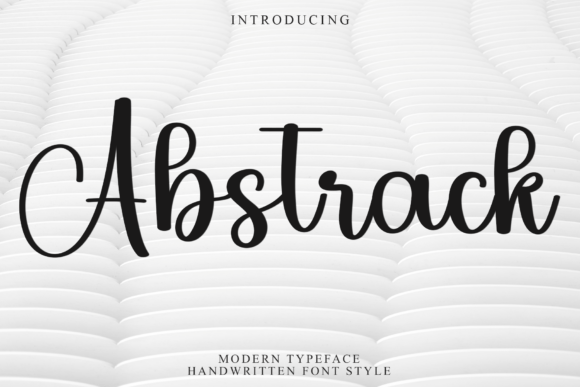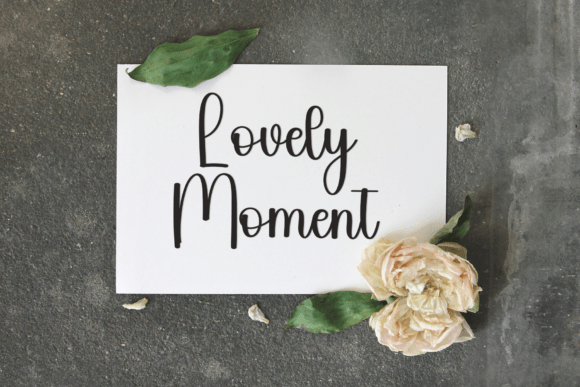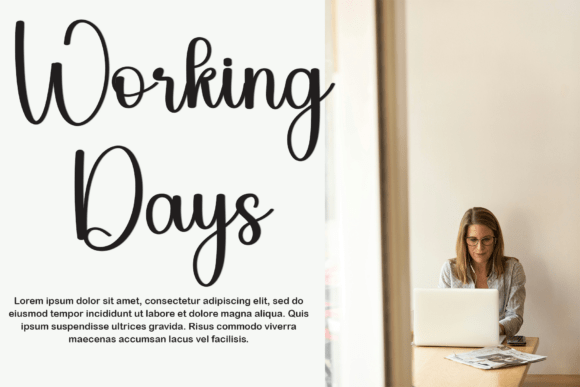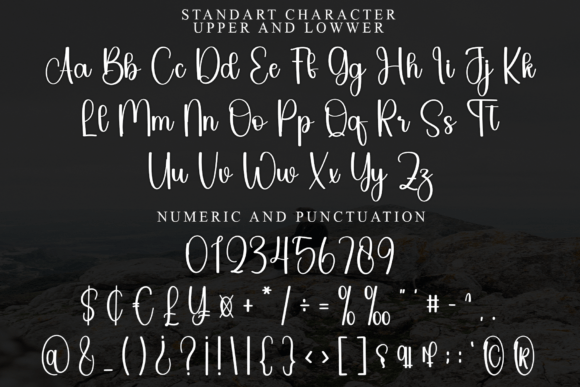
Abstrack Font: Cute Handwritten Font for Social Media & Craft Projects!
About the Abstrack Font
The wait is over! The incredible Abstrack Font is now available for your design toolkit. Abstrack is a casual and creative font that exudes warmth and friendliness. Its round, playful strokes create a relaxed and approachable feel, perfect for personal projects, invitations, and social media graphics. The font’s charming, hand-drawn aesthetic adds a fun and unique touch to any design.
Abstrack excels in headlines, short-form content, and branding applications where a friendly, approachable feel is desired. It works particularly well for logos, social media posts, invitations, and packaging for products targeting a younger or family-oriented demographic. However, its informal nature makes it less suitable for body text, lengthy paragraphs, or user interfaces requiring high legibility.
Pairing Abstrack with a clean sans-serif like Open Sans or Lato provides a strong contrast and enhances readability in applications where both fonts are used. For a more playful feel, consider pairing it with a script font such as Great Vibes, but use it sparingly to avoid overwhelming the design. A geometric sans-serif could also work well for a modern, slightly edgy take.
Abstrack’s overall personality is best described as cheerful and informal, embodying a sense of playful energy and approachability. This makes it ideal for brands and projects seeking to project a friendly, casual, and creative image.
Abstrack Font Usage Examples
Abstrack Font Example